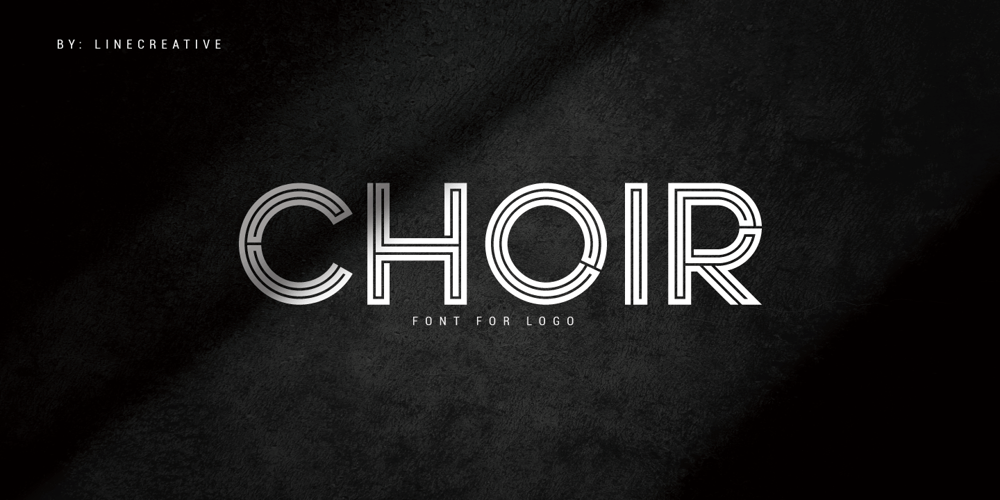
Choir
Choir font
Choir Font Family was designed by Ari Juanda and published by Linecreative. Choir contains 1 styles and family package options. Choir is a modern sans serif font. Each letter consists of three combined lines that connect together like a maze.This font is suitable for logos, business cards, magazines header, Flyer Titles, or large-scale oven artworks.